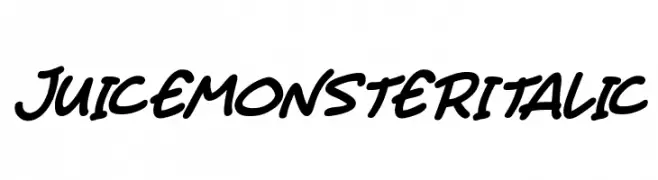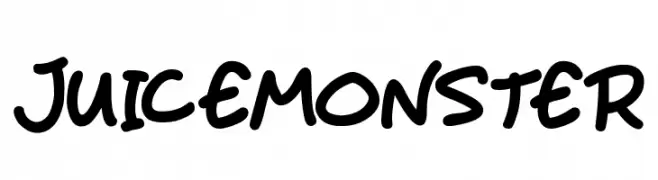
A bold, handwritten font with a playful and casual style.
A playful, handwritten marker-style font with fluid, slanted strokes.
A playful, bold font with rounded edges and a hand-drawn feel.
A bold, italic script font with smooth curves and dynamic flow.
A playful, bold font with rounded, thick strokes and a hand-drawn feel.
A bold, italic script font with a playful and dynamic style.
A bold, handwritten font with rounded, playful characters.
A bold, italic script font with a lively and energetic style.
A bold, italicized script font with a dynamic and energetic style.
A bold, handwritten-style font with rounded, playful characters.